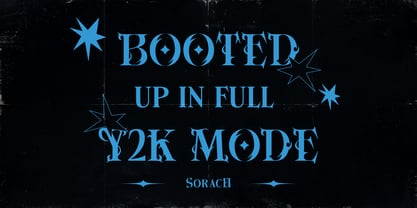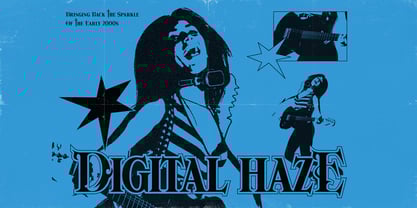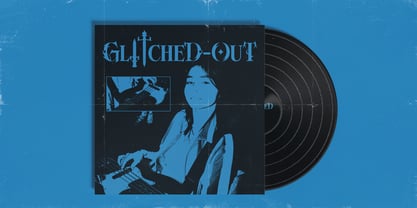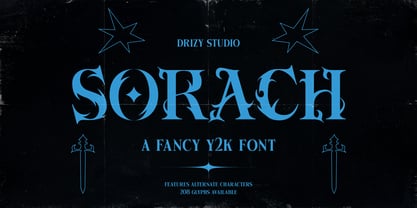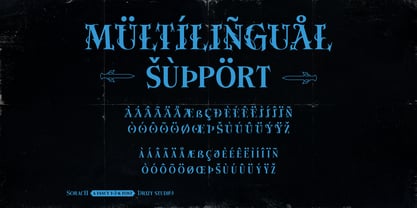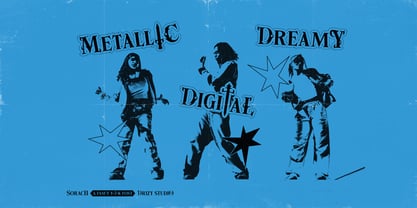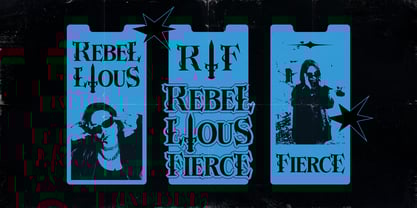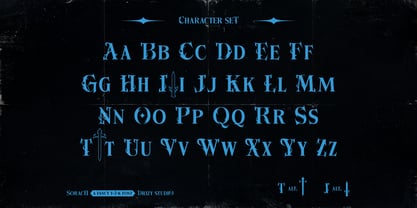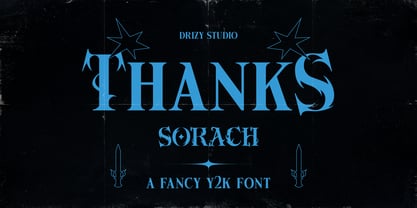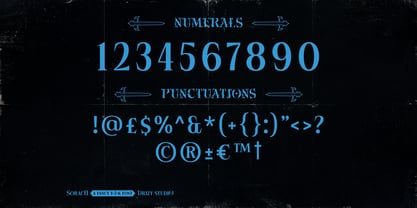
Sorach
by Drizy Font
The Sorach Font Family was designed by Panca Ahmadi Hasan and published by Drizy Font. Sorach contains 1 styles.
Sorach – Fancy Y2K Font
Sorach is a bold and flashy graffiti Y2K font that oozes attitude. With wild curves, urban edge, and futuristic flair, it brings early 2000s street style straight to your designs. Perfect for posters, album covers, fashion branding, or any project that needs loud, rebellious vibes with a digital twist.
Sorach – Fancy Y2K Font Font features:
• Character Set (Uppercase & Lowercase)
• Numbers & Punctuation
• Multilingual
• Stylistic Alternates